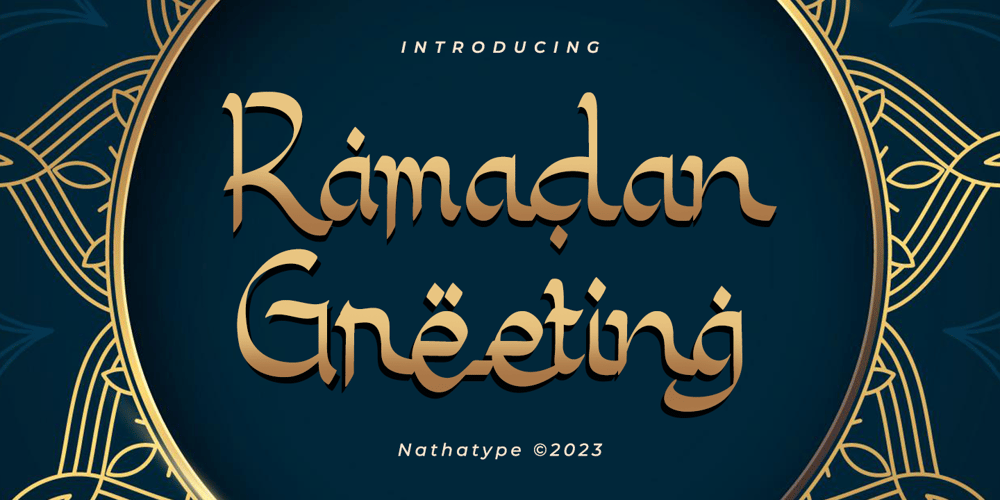
Ramadan Greeting Font Family was designed by Donis Miftahudin and published by Nathatype. Ramadan Greeting contains 1 styles and family package options. Ramadan Greeting is a captivating display font that pays homage to the graceful aesthetics of Arabic calligraphy. Ramadan Greeting is more than just a font; it’s a bridge between heritage and modern design. It’s a versatile tool that allows you to infuse your projects with the timeless beauty and cultural richness of Arabic calligraphy.The characters in Ramadan Greeting are thoughtfully designed with rounded, soft shapes that exude a sense of warmth and approachability. The high contrast between the strokes adds a traditional and authentic flair while maintaining legibility and clarity, even at display sizes. In addition, you can also enjoy the features here.Features: Stylistic Sets Alternates -Multilingual Supports PUA Encoded Numerals and Punctuations Ramadan Greeting fits in headlines, logos, posters, flyers, branding materials, greeting cards, print media, editorial layouts, and many more designs. Find out more ways to use this font by taking a look at the font preview.Thanks for purchasing our fonts. Hopefully, you have a great time using our font. Feel free to contact us anytime for further information or when you have trouble with the font. Thanks a lot and happy designing.